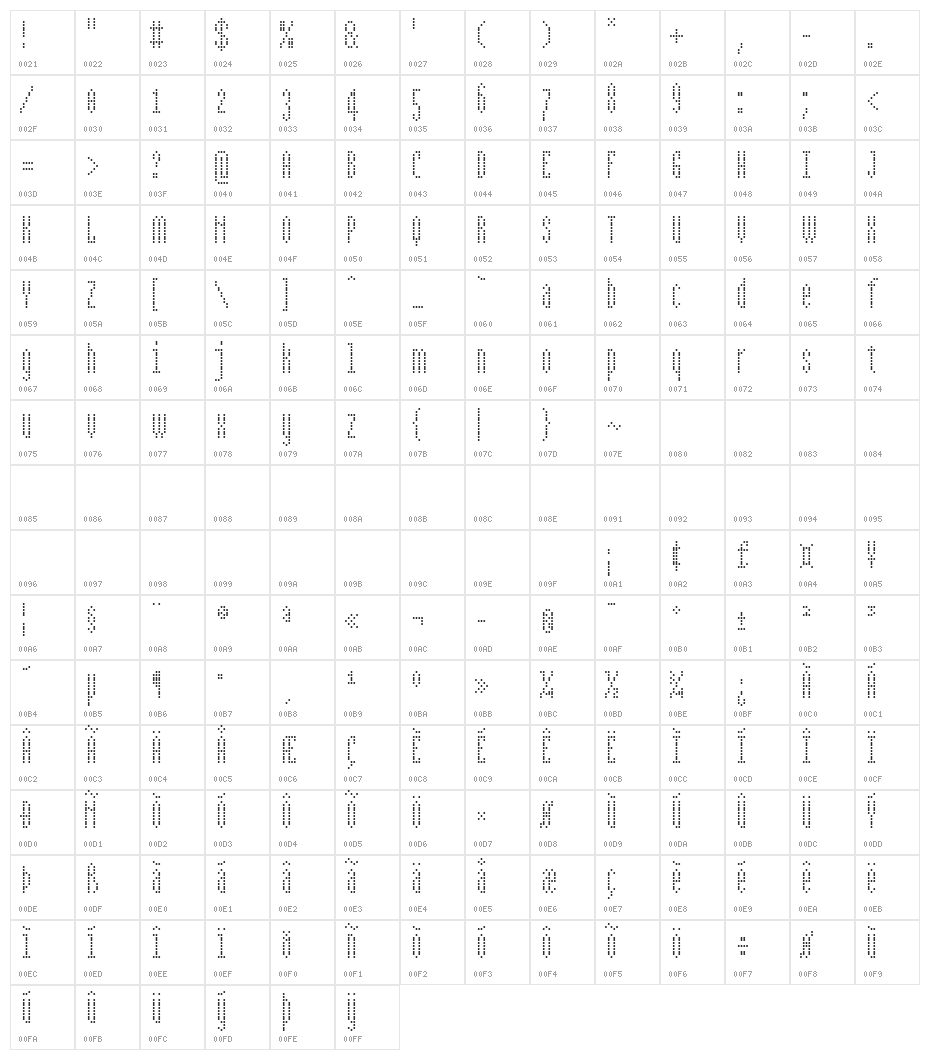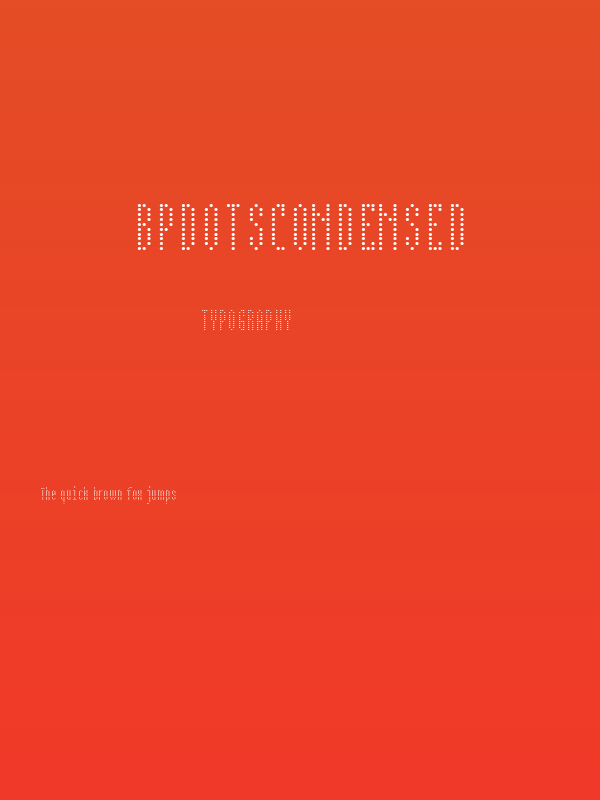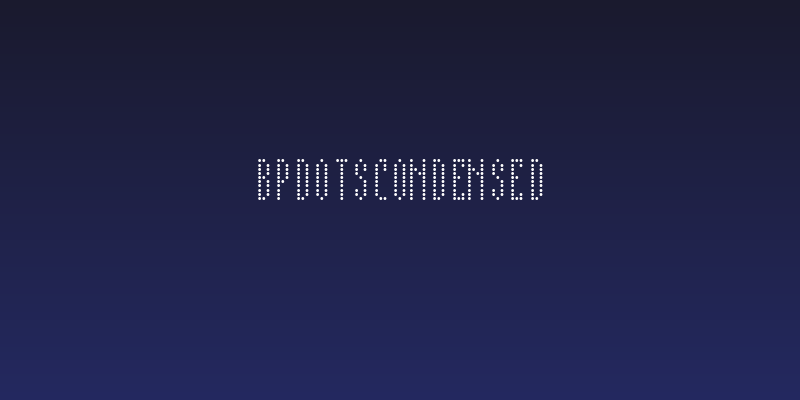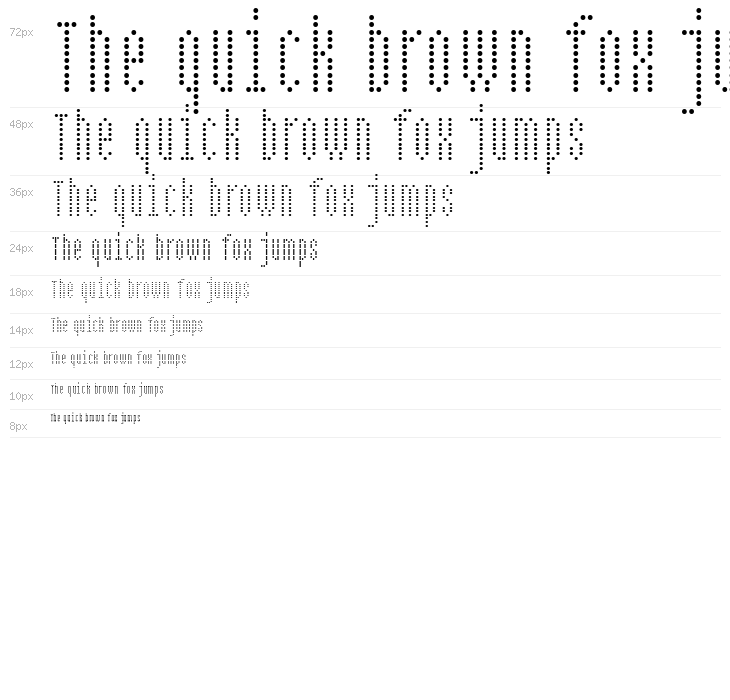
BPdotsCondensed Font
BPdotsCondensed Description
This font is a unique and creative design composed entirely of dots, forming each character with precision and clarity. The dotted style gives it a digital or retro feel, reminiscent of early computer displays or LED signage. Each letter and number is constructed with a consistent pattern of dots, creating a uniform appearance across the entire set. The spacing between the dots is even, ensuring readability while maintaining the distinct dotted aesthetic. This font is particularly eye-catching and can be used to draw attention in various design contexts.
| Proposed Projects | Ideal for digital displays, retro-themed designs, posters, and creative branding projects. |